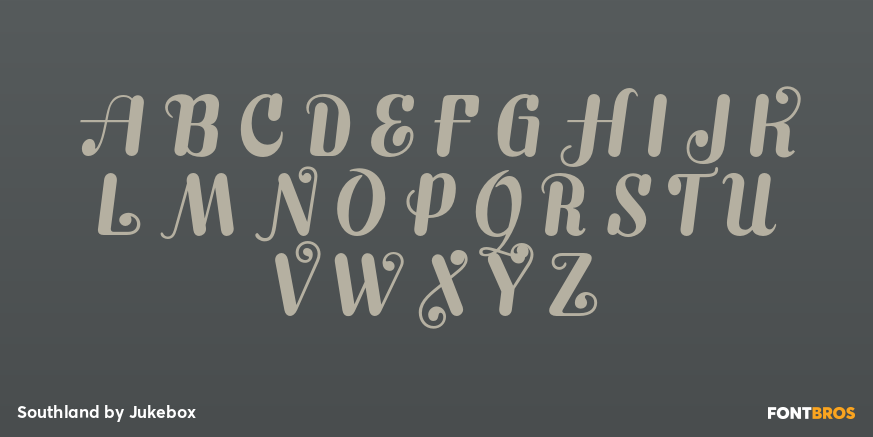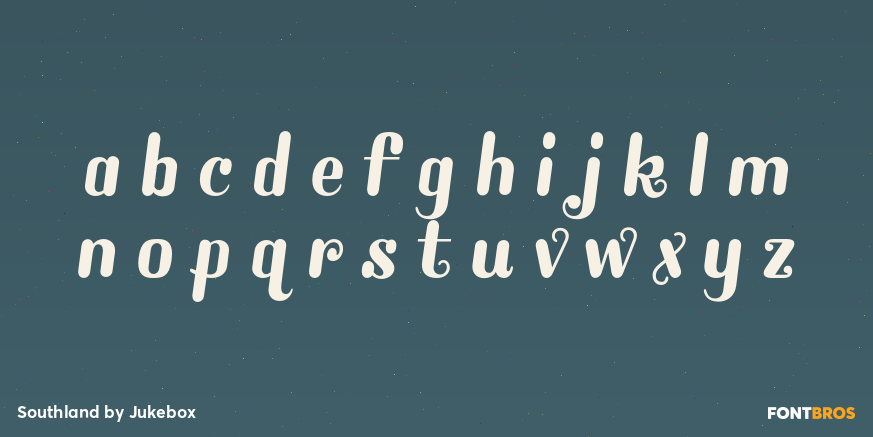
Southland
Font Family by Jukebox
Southland is a unique and interesting font with an art deco influence to it. Inspired by hand-drawn sample in an old book on pen lettering, Southland is geometric and rounded, yet has a scripty feel to it. It is heavy and yet delicate at the same time.